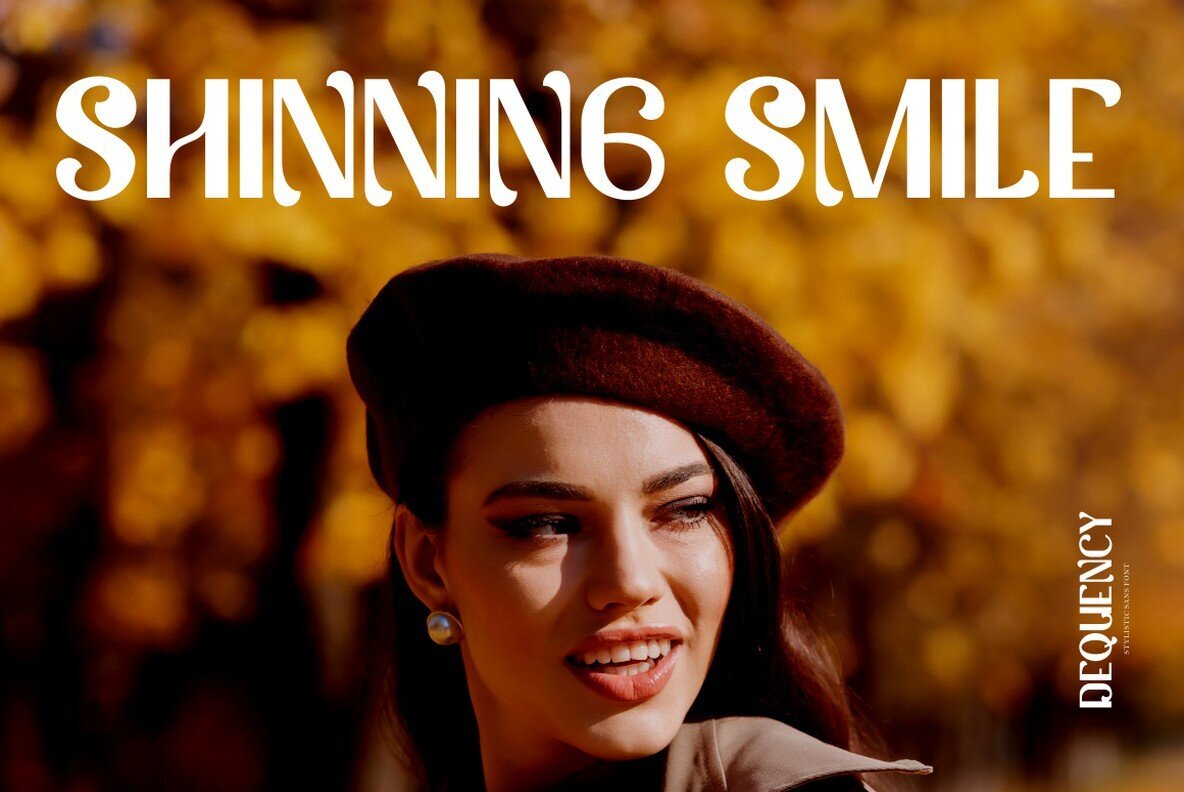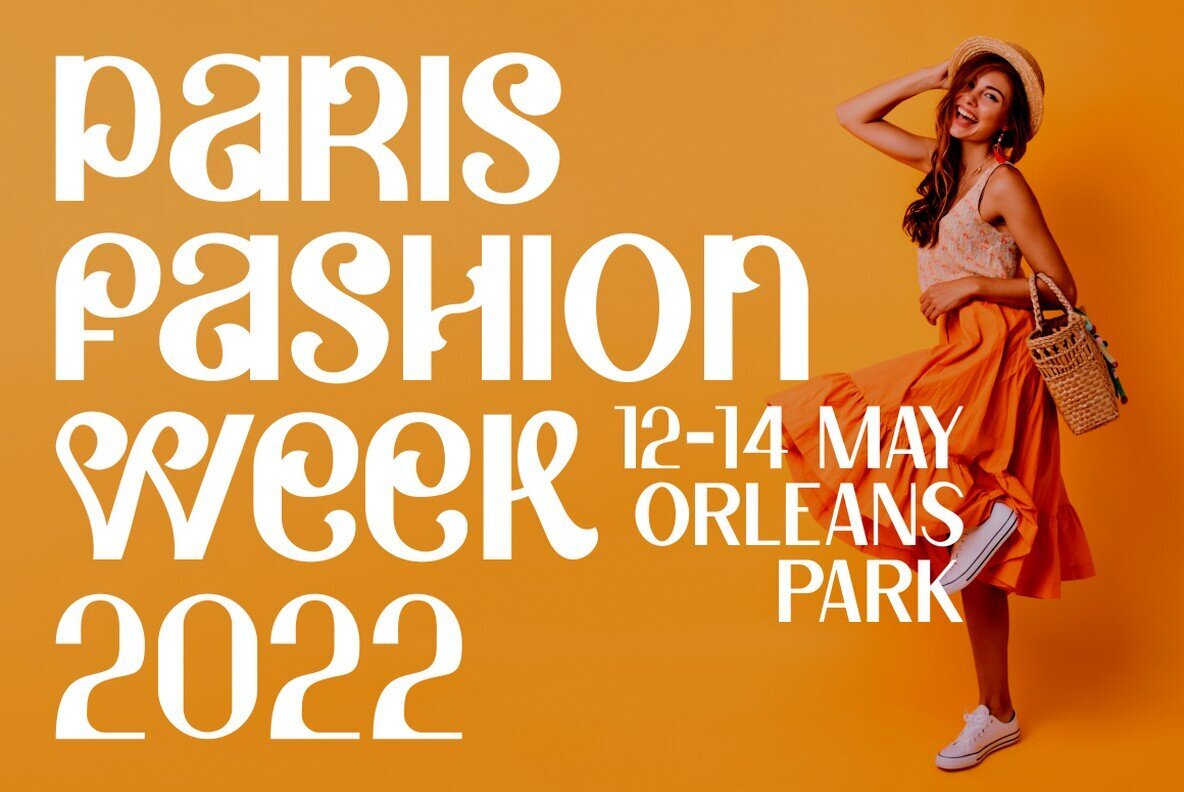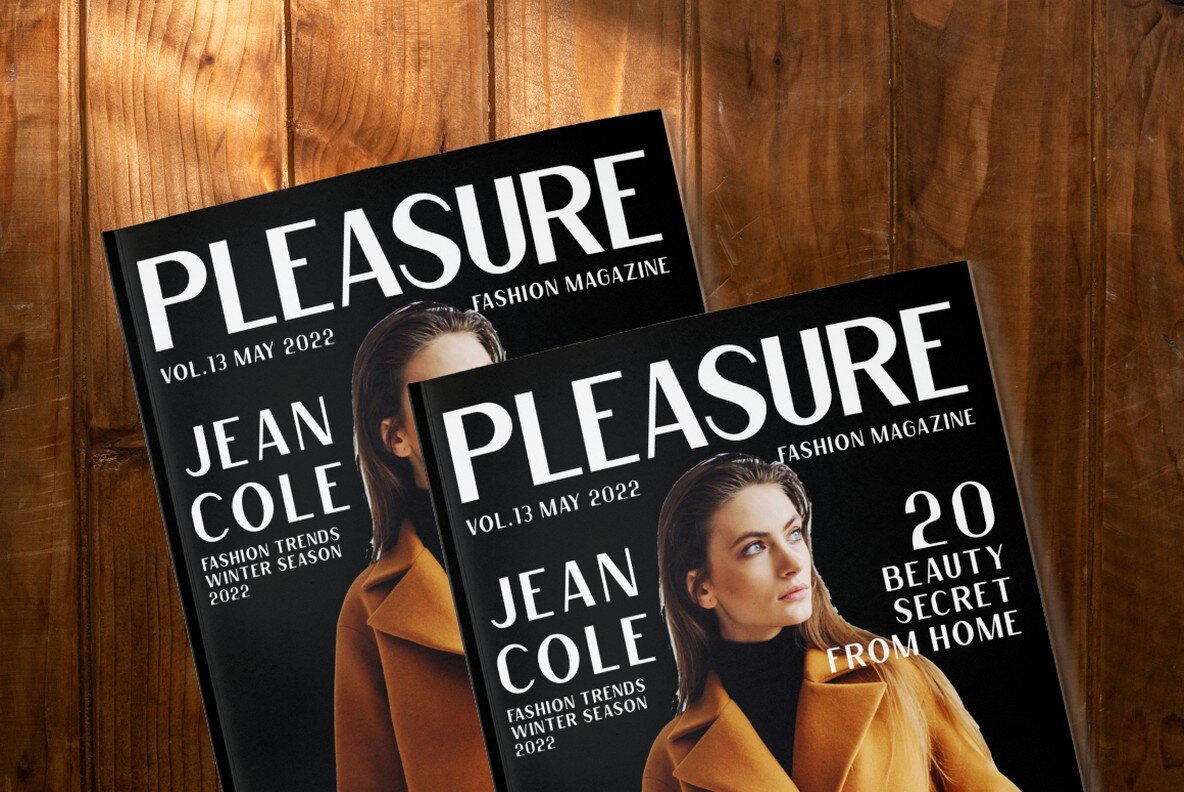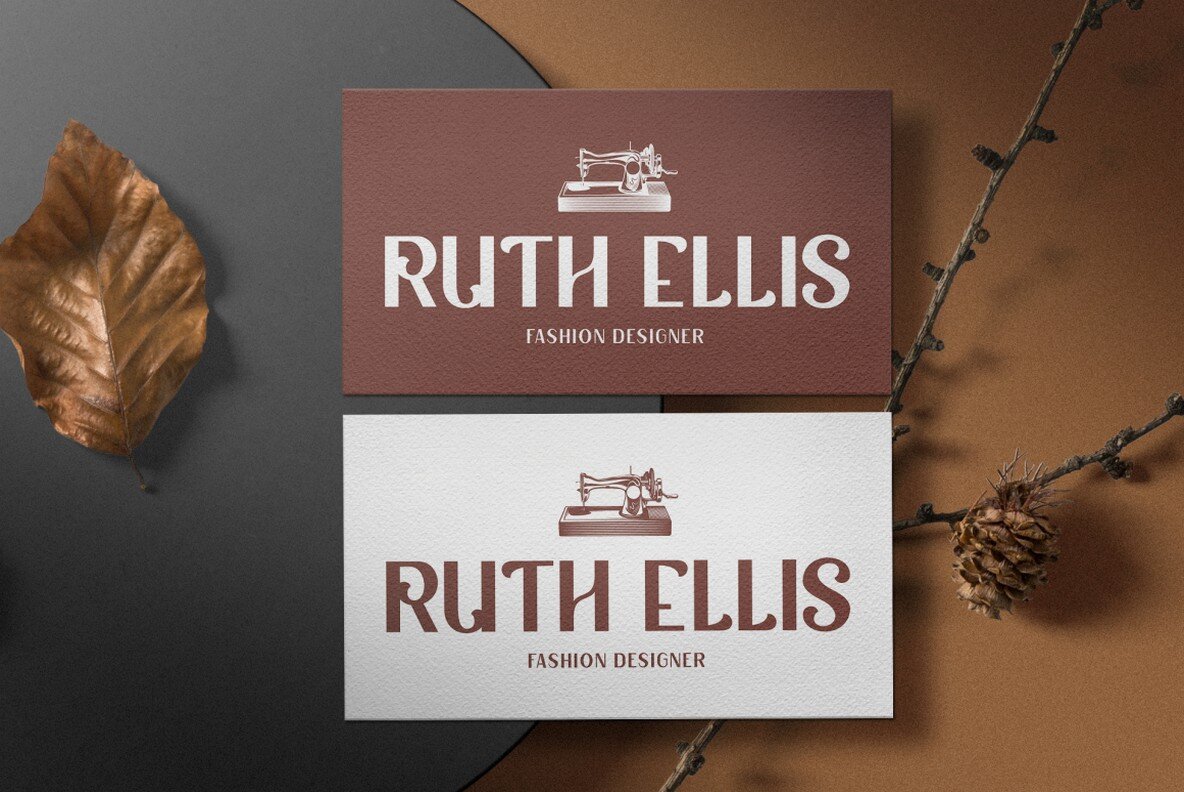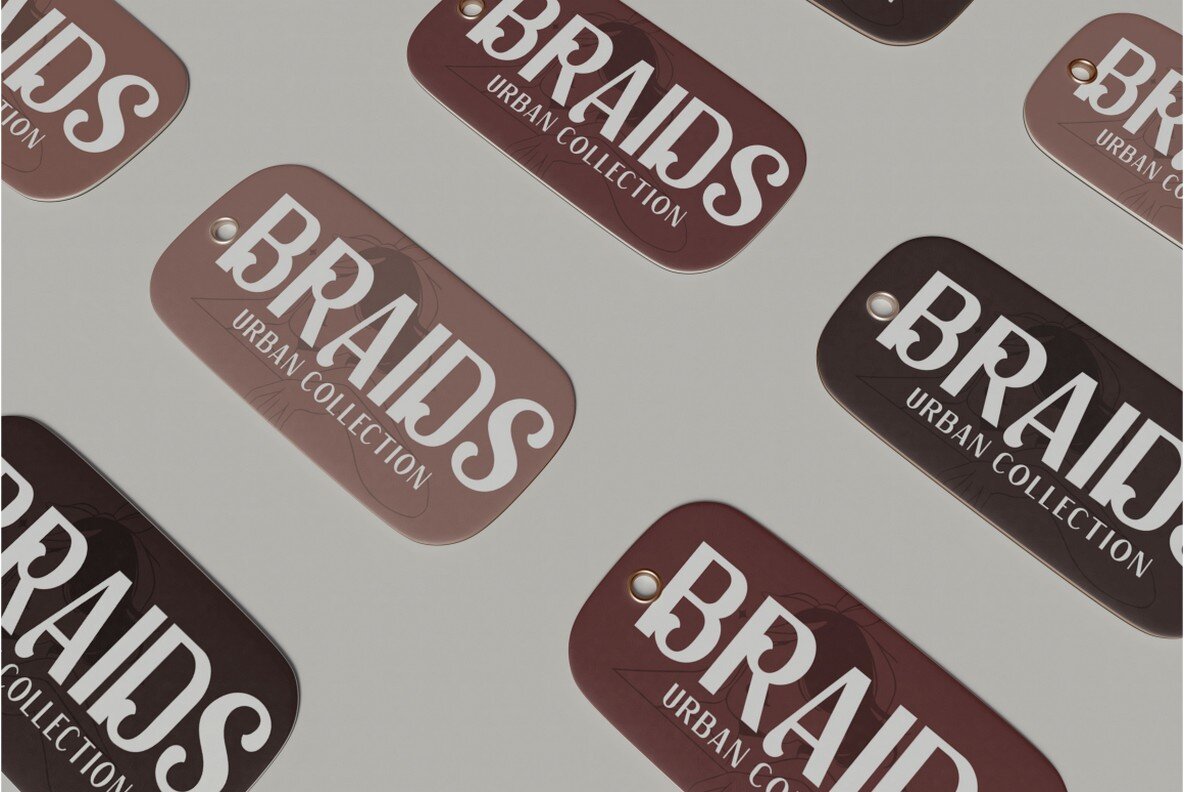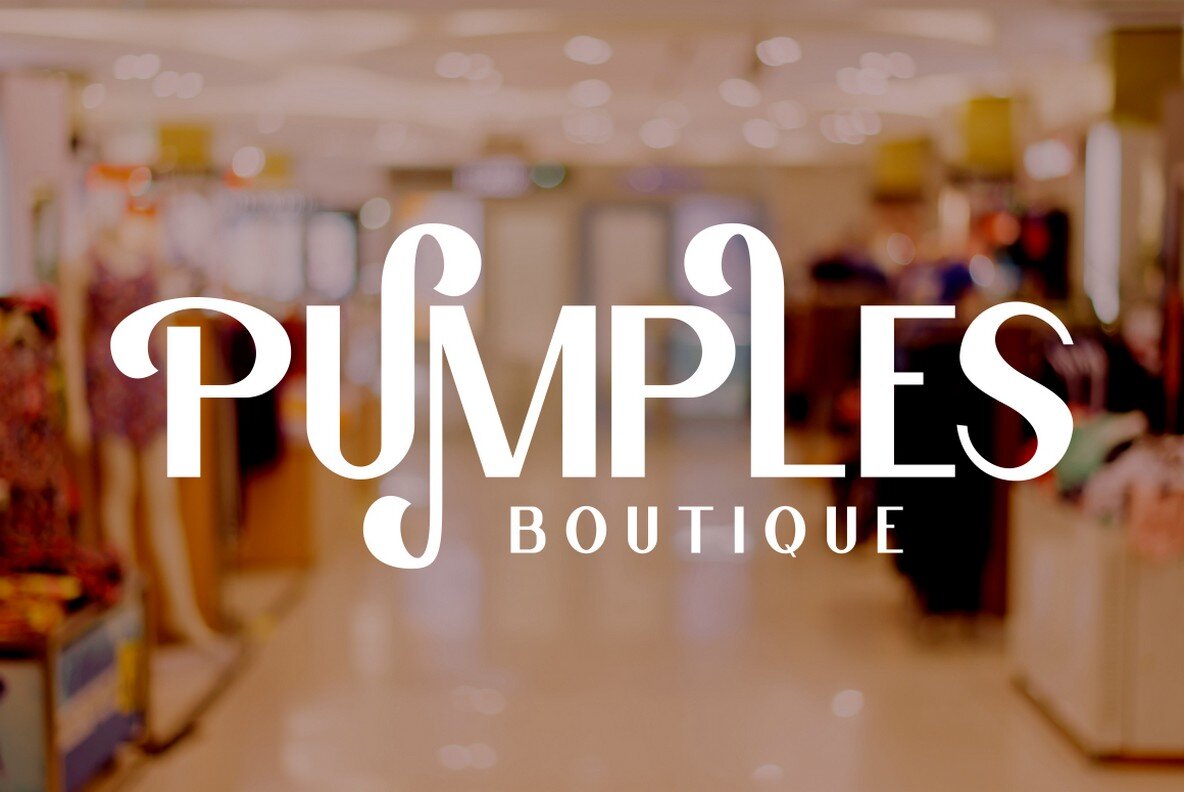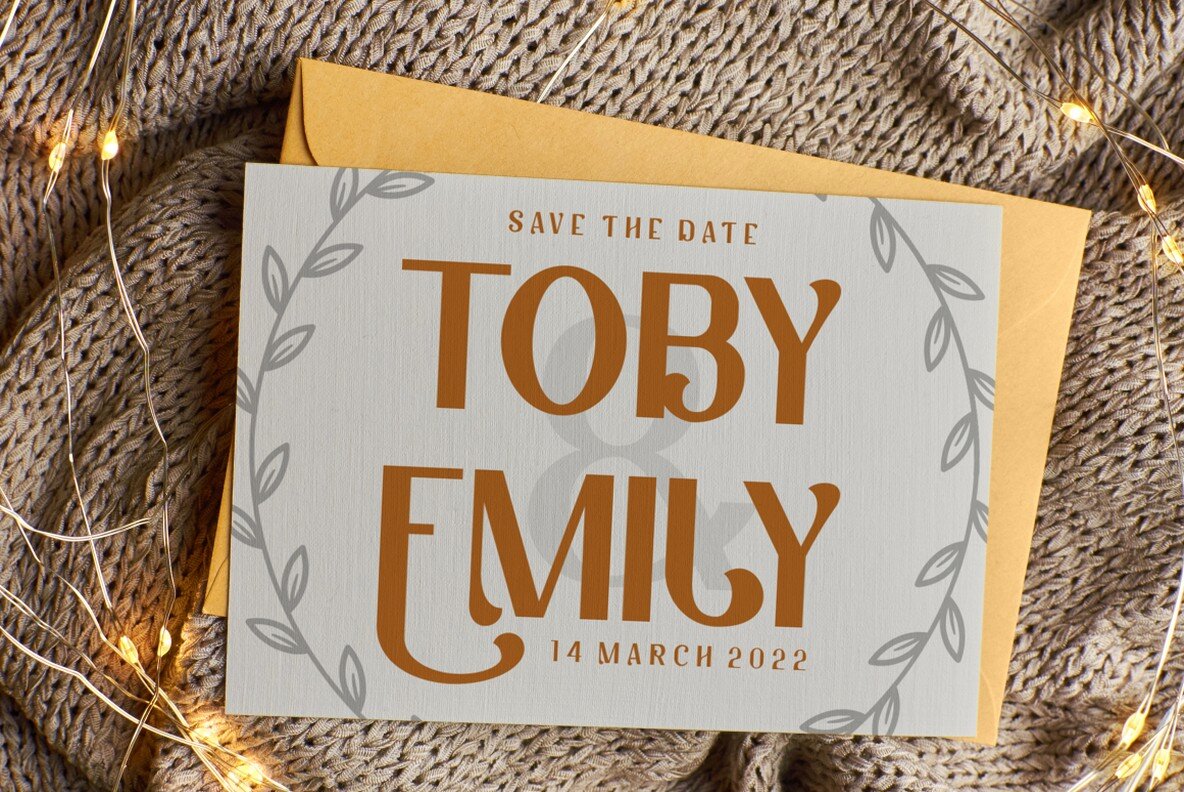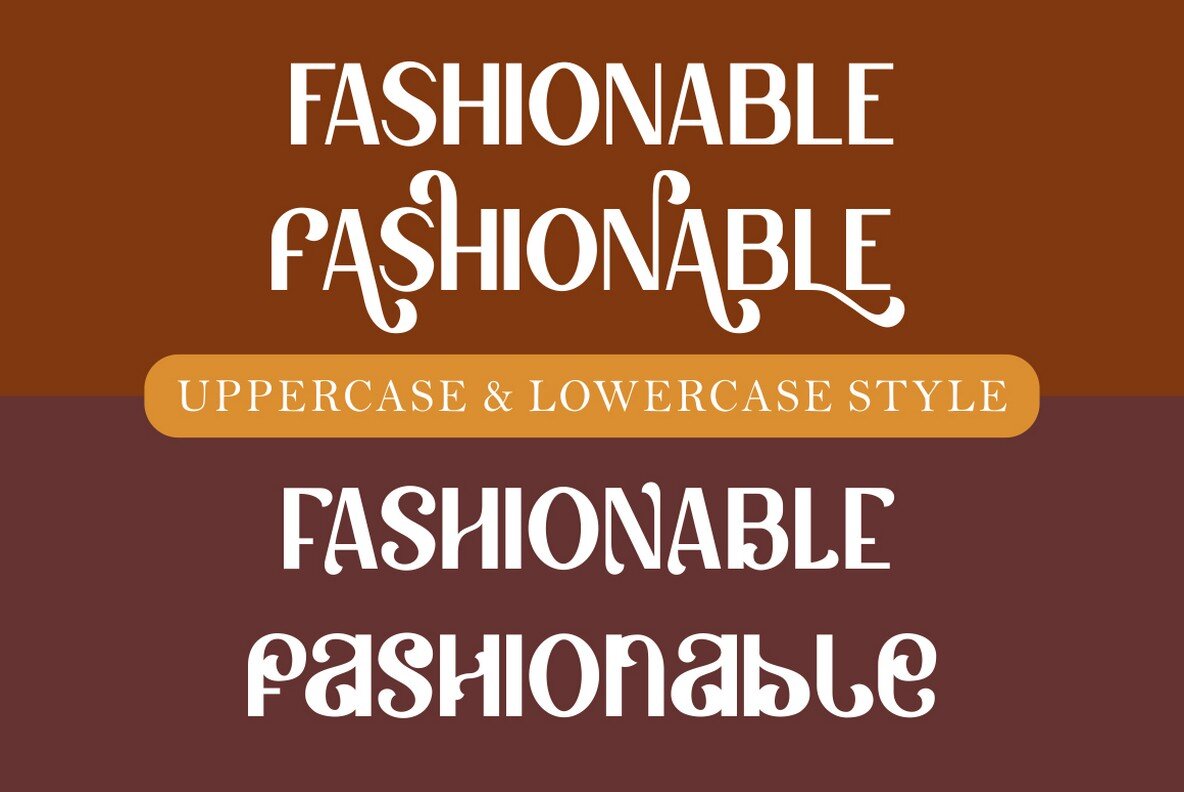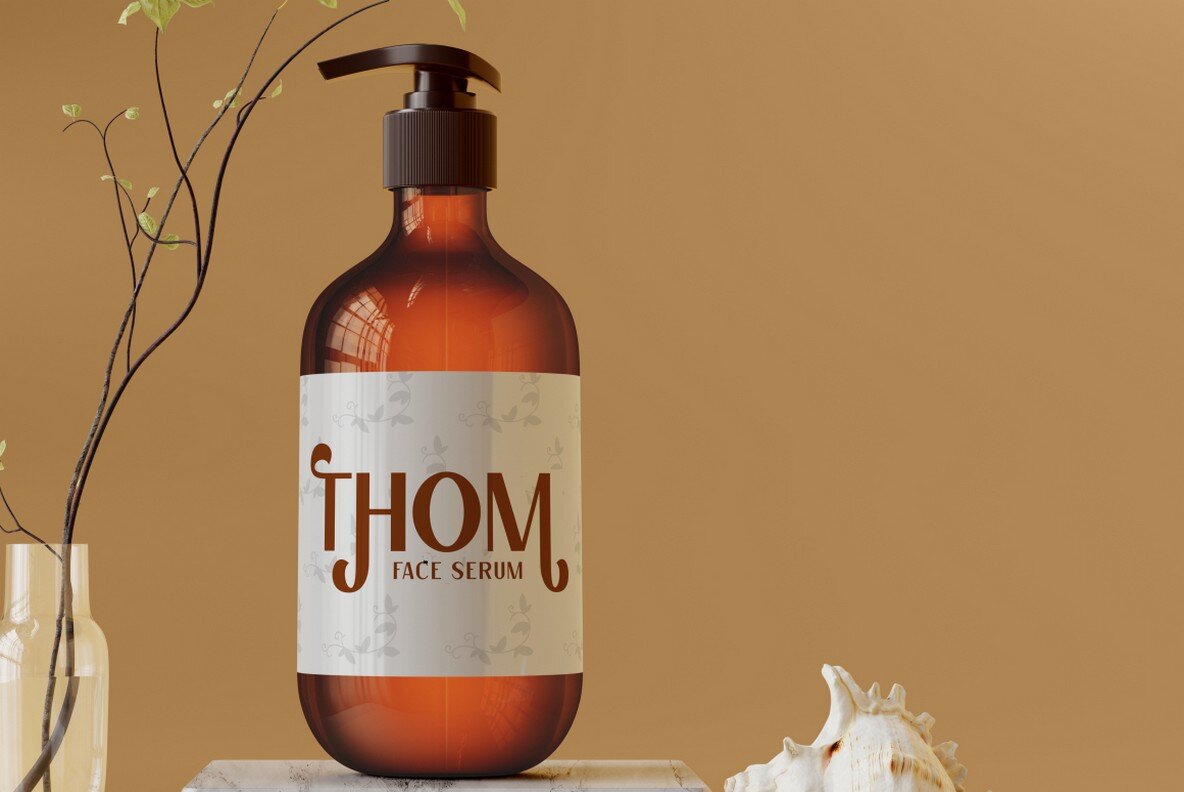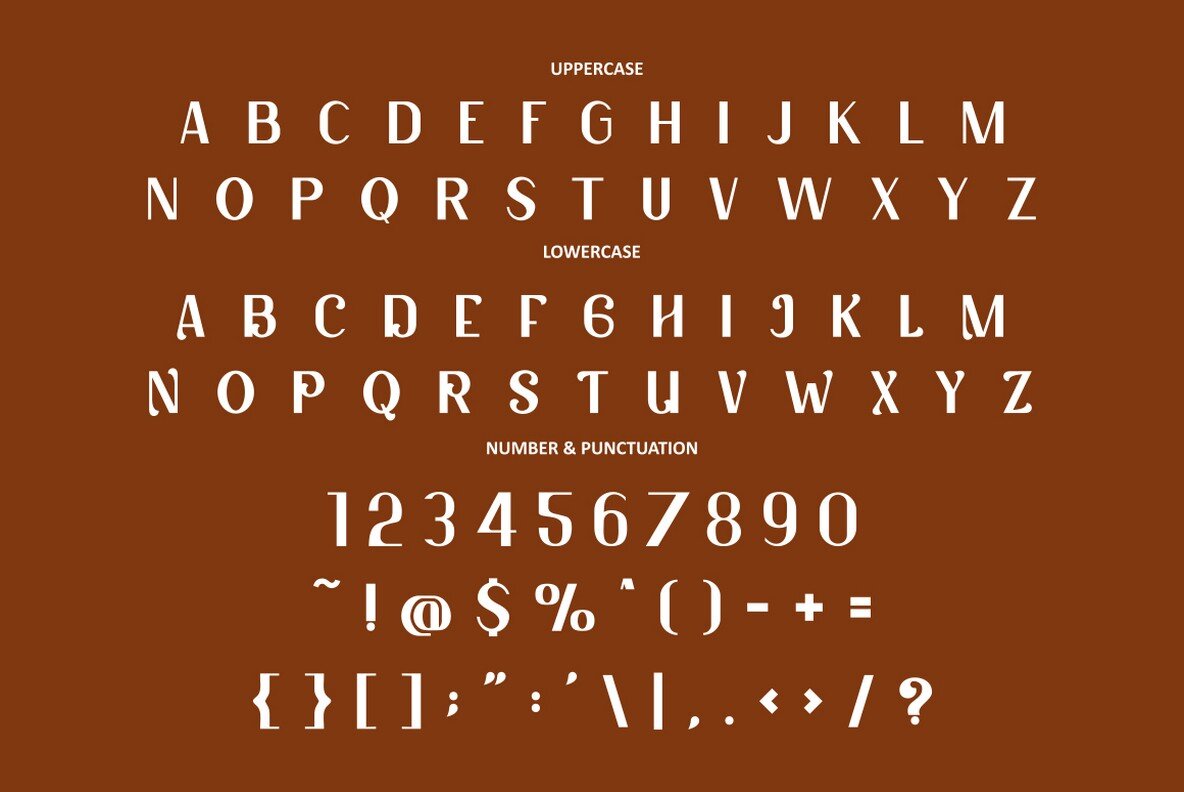
Dequency Font
Dequency Regular
Dequency emerges as a distinctive sans font, conceived from a collision of unique typography and imaginative lettering. Its stylistic alphabet intertwined with a sans serif essence makes it an exceptional choice for various design projects. Boasting 534 glyphs, including 359 alternates, it offers boundless possibilities for creative expressions and lettering configurations. Equipped with OpenType features that include a wealth of alternates and elegant end swashes, this font deftly enhances your design endeavors. Dequency finds its best applications in logotypes, headlines, posters, logos, quotes, product packaging, merchandise, social media, greeting cards, and more. Its wide-ranging language support ensures your designs communicate seamlessly across linguistic barriers.Dequency by Putra Novembria Candra Kusuma: A Stylistic Sans Font